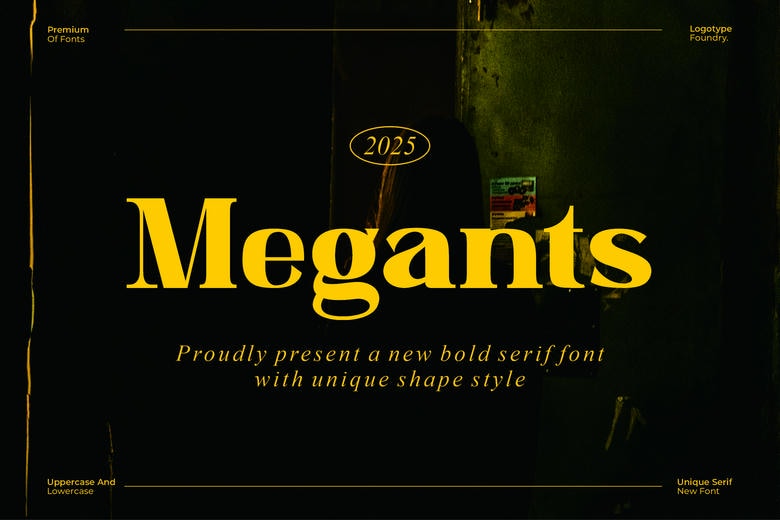
Megants Font
Megants may be a serif font with a classic theme, movement, lively and jovial ornamental font. It has a rather unusual style that is based on wood. It is suitable for invitations and invitations design, company logos, movie titles, movie names, business cards, books title, brand name and many other designs.
Megants Serif Font